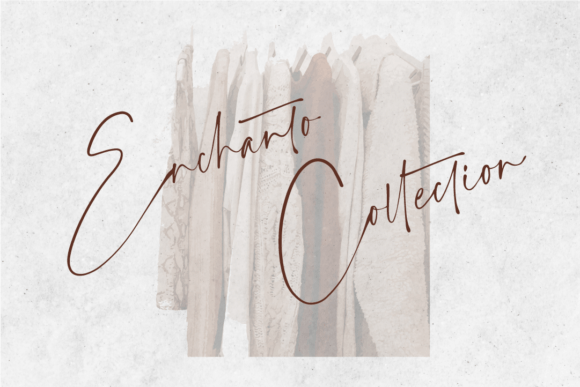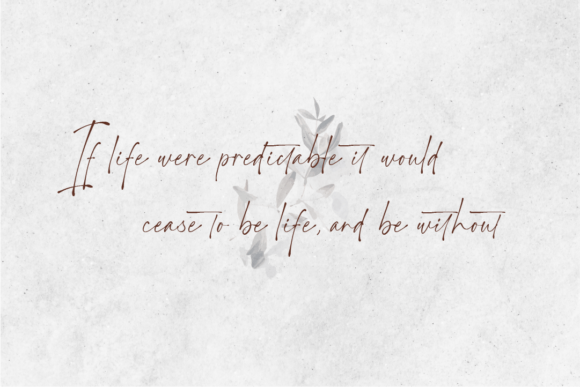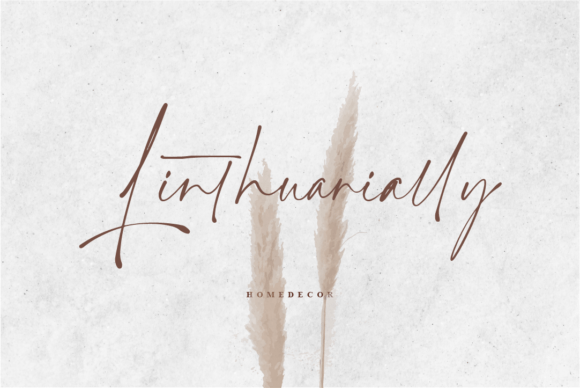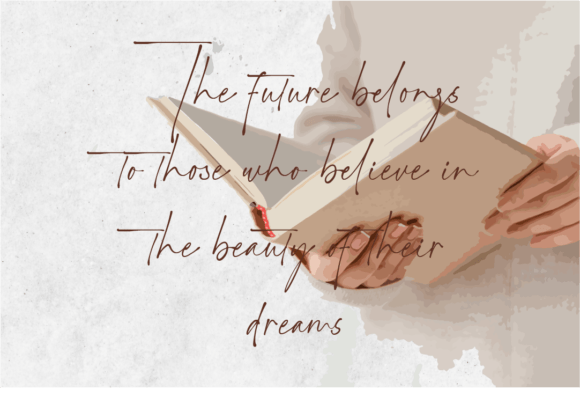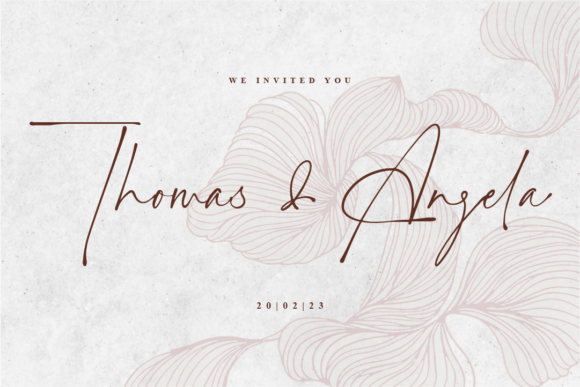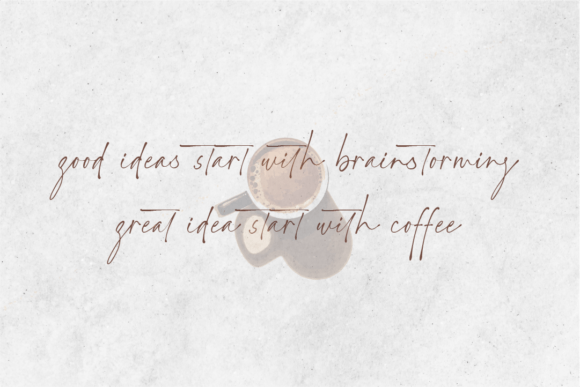
Introduction to Manhattan Signature Font
Manhattan Signature is a stylish and luxurious handwritten font.
Use this font in any of your brilliant ideas like invitations, mockups, logos, etc , and every design will definitely look elegant and elevated.
Key Features of Manhattan Signature Font